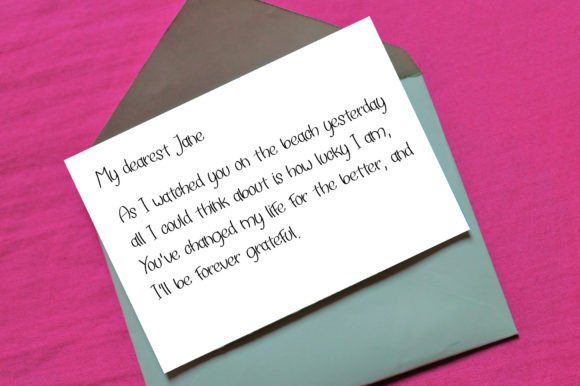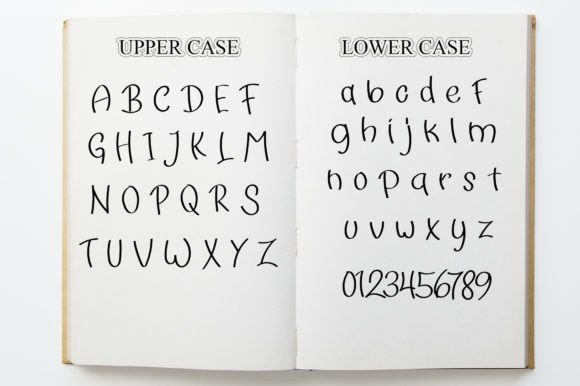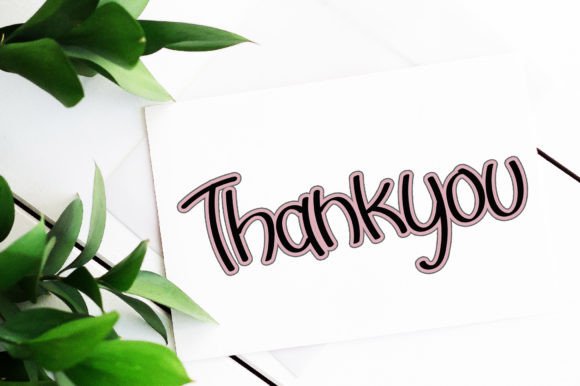
Hand Note Font
About Hand Note Font
“Hand Note” stands as a classic handwritten font, renowned for its enduring appeal and versatility. This script font holds the power to elevate a wide spectrum of design projects, making it an ideal choice for various creative endeavors. With its unique charm and character, “Hand Note” adds a sweet and personal touch that can transform ordinary designs into something extraordinary.
One of the remarkable qualities of “Hand Note” is its timeless quality. In a world dominated by digital fonts and designs, this handwritten font brings a sense of nostalgia and authenticity. Its irregular strokes and human-like imperfections create an organic and warm feel that resonates with audiences of all ages.
The applications of “Hand Note” are as diverse as your imagination. It finds a natural home in greeting cards, where it can convey sentiments with a personal touch. The whimsical and playful nature of the font also makes it a fantastic choice for kids’ crafts. Whether it’s a poster for a school project or a fun activity book cover, “Hand Note” injects a sense of fun and creativity that appeals to children and adults alike.
Designers often turn to “Hand Note” when they want to infuse a sense of character and personality into their work. It’s a font that can adapt to various styles, from rustic and vintage to modern and trendy. Its adaptability is one of its key strengths, allowing it to complement a wide range of design elements seamlessly.
In conclusion, “Hand Note” is not just a font; it’s a design tool that adds depth and emotion to your projects. Its timeless appeal, versatility, and ability to convey a personal touch make it a cherished choice among designers. So, the next time you’re looking to inject a sweet and authentic vibe into your designs, remember the charm of “Hand Note.”